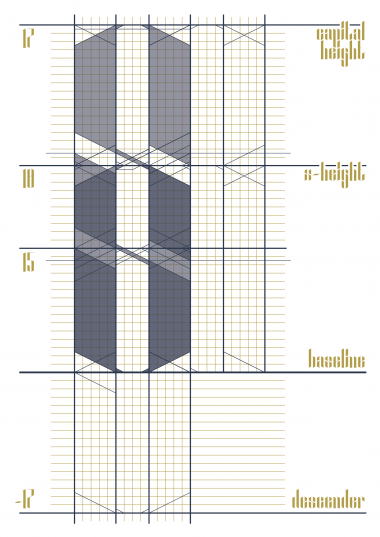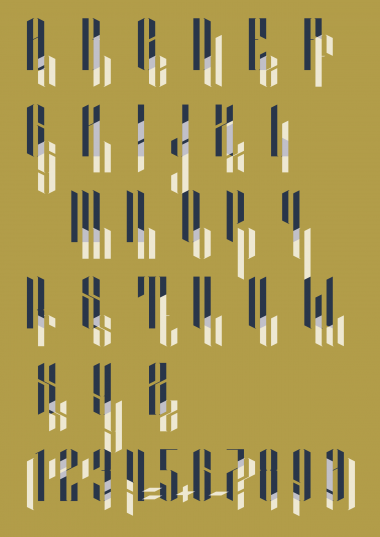
The vertical nature of '2602' refers to the work of Yamasaki Minoru, one of the most influential architects of the New Formalism in the 20th century.
For optimal use it's advised to use line spacing which is 0,65666667 times the font size.
There's a slightly small difference in width between the strokes and the open spaces in between them.